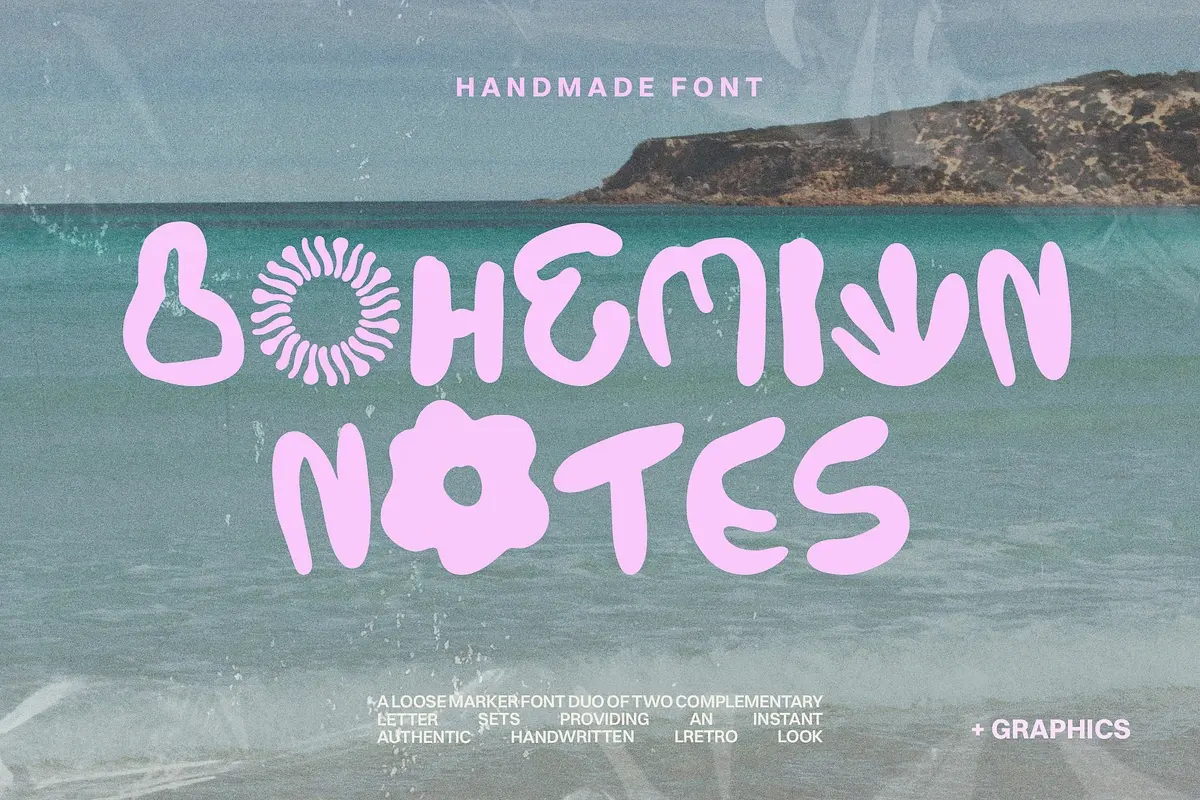
Please note, you must purchase this font for commercial use. However, you can easily download Bohemian Notes Bold Handmade Font Free Download for personal use and testing purposes. Bohemian Notes Bold Handmade Font is a unique and expressive typeface with a bold, handcrafted style. Perfect for projects that require a rustic or artistic touch, this font works beautifully for branding, logos, posters, invitations, and more. With its handmade look and distinctive character, Bohemian Notes Bold Handmade Font Free Download adds a personal, creative flair to your designs. Whether you're designing for a boho-inspired brand, crafting an event invitation, or working on custom graphics, this font will bring an authentic, warm aesthetic to your project. Download Bohemian Notes Bold Handmade Font Free Download today and explore its full potential before opting for a commercial license.